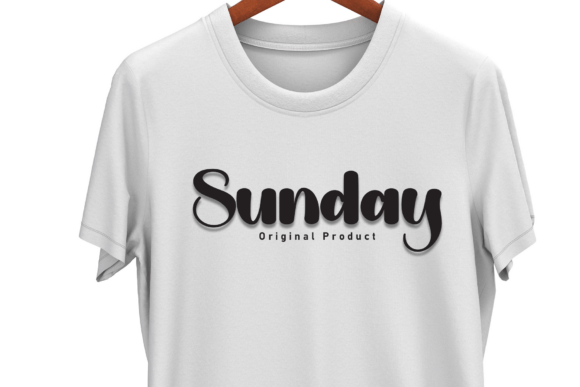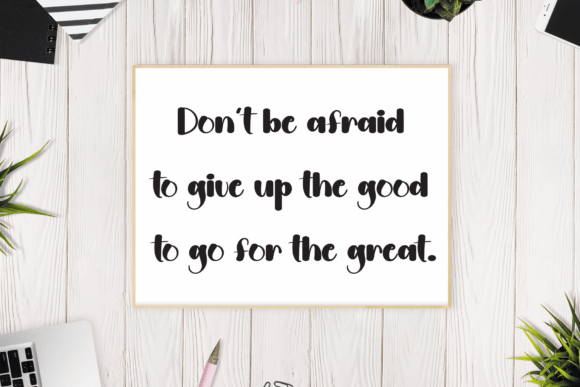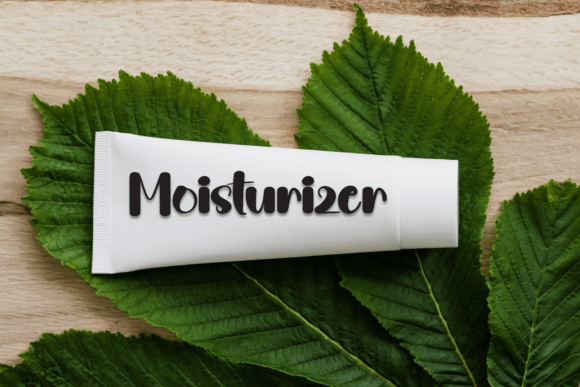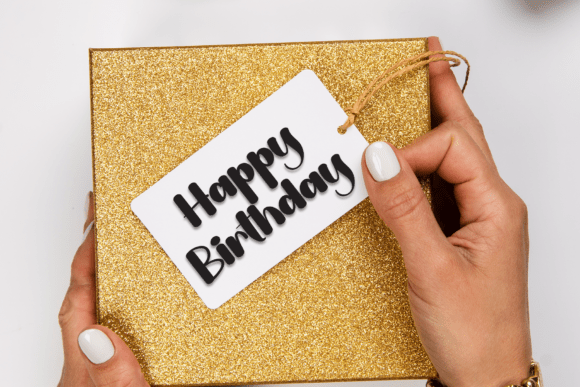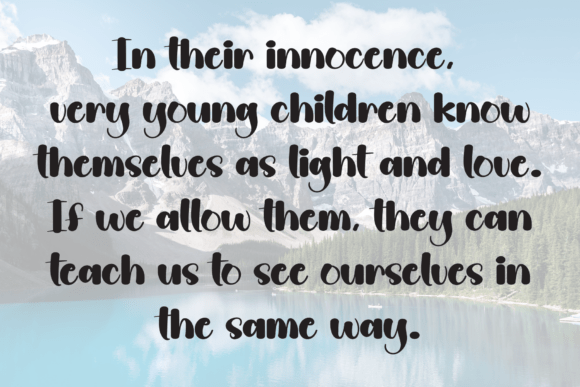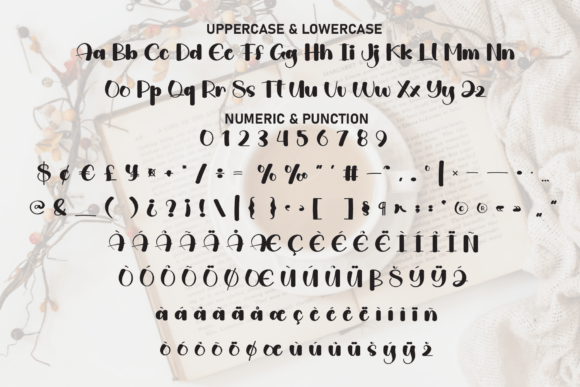
Coffee Break Font: The Perfect Blend of Whimsy and Warmth
Ah, the elusive perfect font. You know, that one that makes your design project go from meh to mesmerizing. I recall a particularly frustrating design session where I was working on a whimsical wedding invitation. My client wanted something that captured the essence of joy and playfulness, but I was stuck in a font rut. That’s when I stumbled upon the Coffee Break Font, and let me tell you, it was love at first sight! 💕
As a designer, I’m always on the lookout for fonts that can elevate my projects. Here’s my honest review of the Coffee Break Font:
- ✨ Warm and Inviting: This font exudes warmth and friendliness, making it perfect for projects that require a personal touch.
- ✅ Playful yet Elegant: The Coffee Break Font strikes the perfect balance between playfulness and charm, making it ideal for whimsical designs.
- 💫 Versatile: From wedding invitations to heartfelt cards, this font can be used for a wide range of design projects.
Now, no font is perfect, and the Coffee Break Font has a few quirks:
- 🤔 Limited Use in Small Sizes: While the font looks stunning in larger sizes, it can become a bit illegible when used in smaller sizes (below 10pt). ⚠️
- ⚠️ No Extensive Language Support: The Coffee Break Font supports basic Latin characters, but it may not be the best choice for projects requiring extensive language support.
The Coffee Break Font was created with the intention of capturing the warmth and joy of a friendly coffee break. Imagine sipping on a rich, velvety latte while chatting with friends – that’s the feeling this font aims to evoke. The designer, a self-proclaimed coffee aficionado, wanted to create a font that would bring a smile to people’s faces and make their designs stand out.
| Is the Coffee Break Font suitable for body text? | While the font is beautiful, it’s recommended for display text or headings. For body text, a clearer font might be more suitable. |